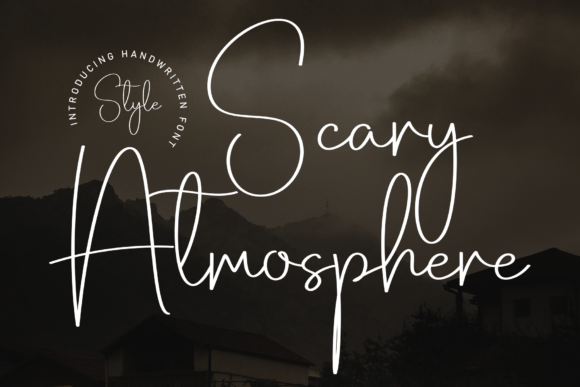
Welcome to the realm of Scary Atmosphere, an enchanting handwritten font that captivates hearts with its unique flair and undeniable charm. This remarkable font possesses an allure that transcends the ordinary, enticing you to embark on a creative journey where imagination and elegance converge.
Indulge in the intricate details of Scary Atmosphere, where each letter dances with a graceful rhythm, beckoning you to explore the boundless possibilities of artistic expression. It is a font that whispers tales of whimsy and adventure, encouraging you to craft designs that exude a touch of magic and intrigue.
With Scary Atmosphere, you'll discover a font that effortlessly blends the timeless beauty of calligraphy with a modern, vibrant aesthetic. It's a perfect harmony of old-world charm and contemporary style, allowing you to create designs that stand out from the crowd and leave a lasting impression.
Immerse yourself in a world where creativity knows no bounds with Scary Atmosphere. This font is your key to unlocking a treasure trove of artistic wonders. Let your imagination soar as you craft logos that command attention, website designs that captivate visitors, and social media posts that ignite engagement.
But Scary Atmosphere is more than just a font; it's an experience. It's an invitation to embark on a creative odyssey, to explore the depths of your imagination and bring forth masterpieces that resonate with audiences worldwide.
So, dear creative soul, embrace the allure of Scary Atmosphere and let your designs take flight. Its captivating essence will transform your projects into works of art, leaving a trail of enchantment wherever they go.